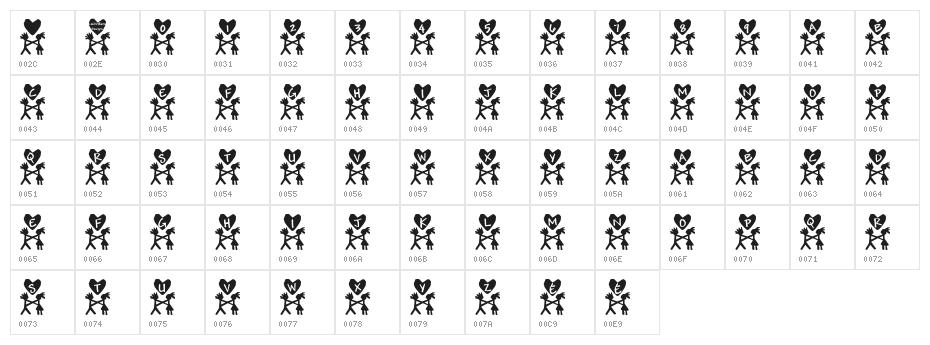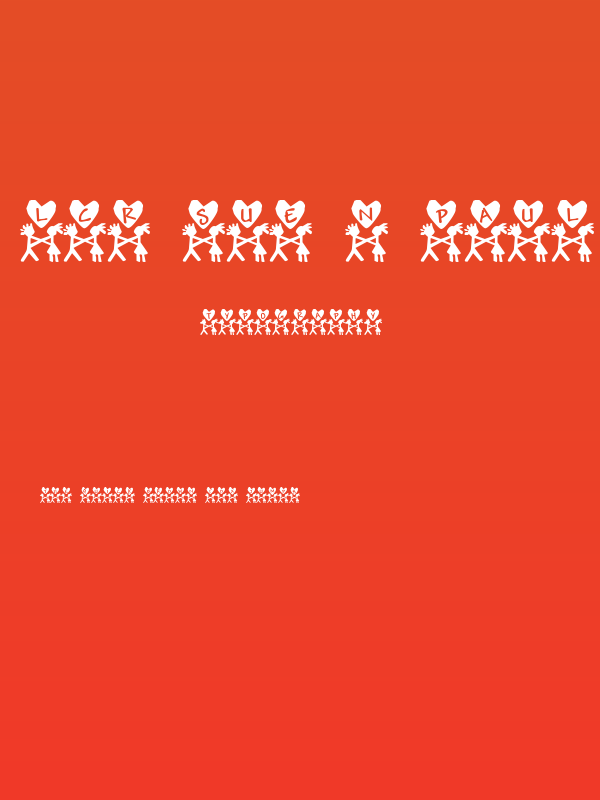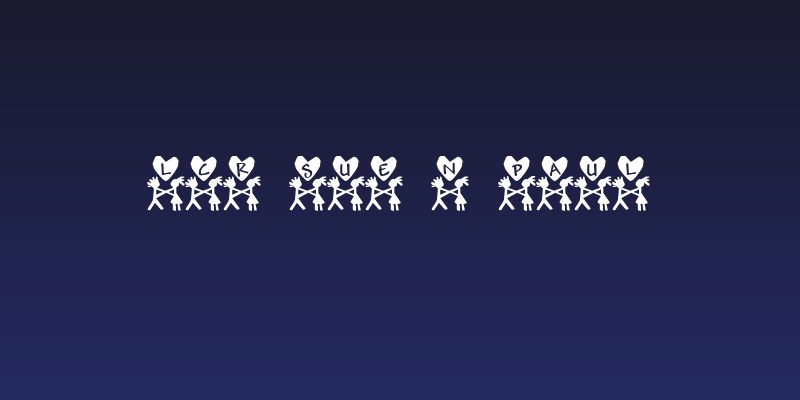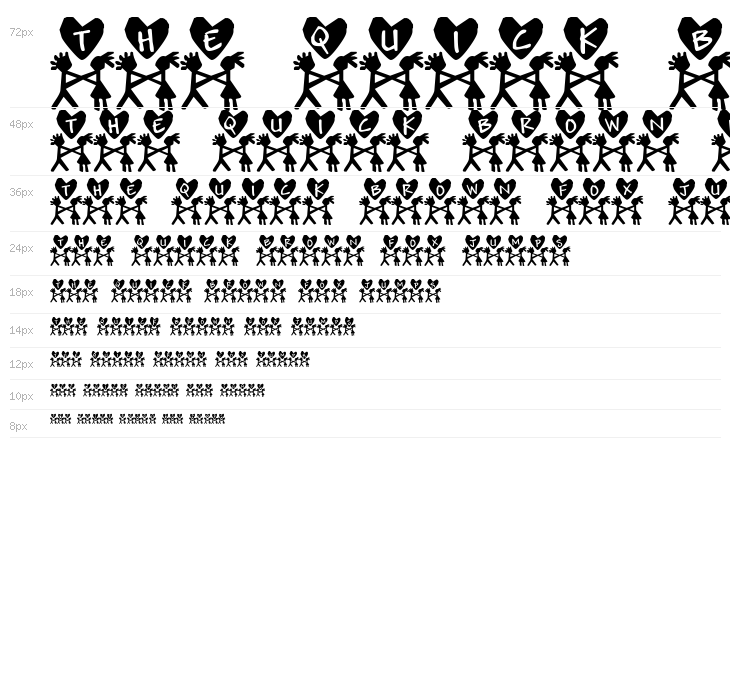
LCR Sue N Paul Font
LCR Sue N Paul Description
This playful and whimsical font features characters enclosed within heart shapes, each supported by stick figure characters. The design is highly decorative, with each letter and number uniquely styled to fit within the heart motif. The font exudes a sense of fun and creativity, making it ideal for projects that require a touch of charm and individuality. The stick figures add a dynamic element, creating a lively and engaging visual experience. This font is perfect for children's projects, playful branding, and any design that seeks to convey joy and lightheartedness.
| Overall Style | Playful and Whimsical |
| Use Case | Headlines, Logos, Decorative Text |
| Proposed Projects | Ideal for children's books, playful branding, greeting cards, and creative invitations. |